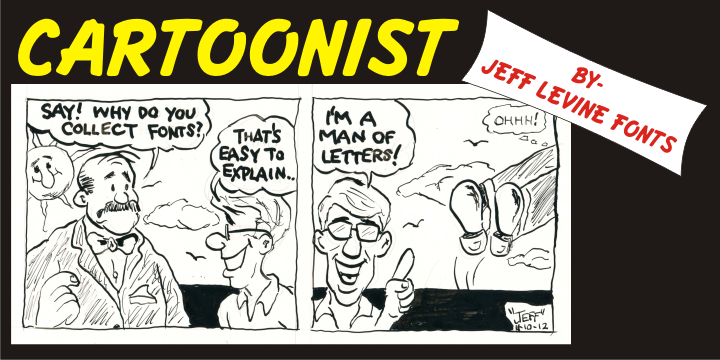
If you're looking for a playful, hand-drawn typeface with a classic cartoon feel, Cartoonist JNL Font Free Download is the perfect choice for your creative projects. This fun and lively font features bold, rounded letterforms inspired by traditional comic book and animation lettering, making it ideal for children’s books, comic strips, posters, logos, packaging, and designs that need a whimsical, lighthearted touch. Its cheerful style brings instant personality and charm to any project.
Cartoonist JNL Font offers great readability while maintaining its playful aesthetic, ensuring versatility across both print and digital media. It includes multilingual support and a variety of glyphs, giving designers flexibility to create engaging, character-driven typography. Whether you're designing for kids, entertainment, or nostalgic branding, this font delivers warmth and fun.